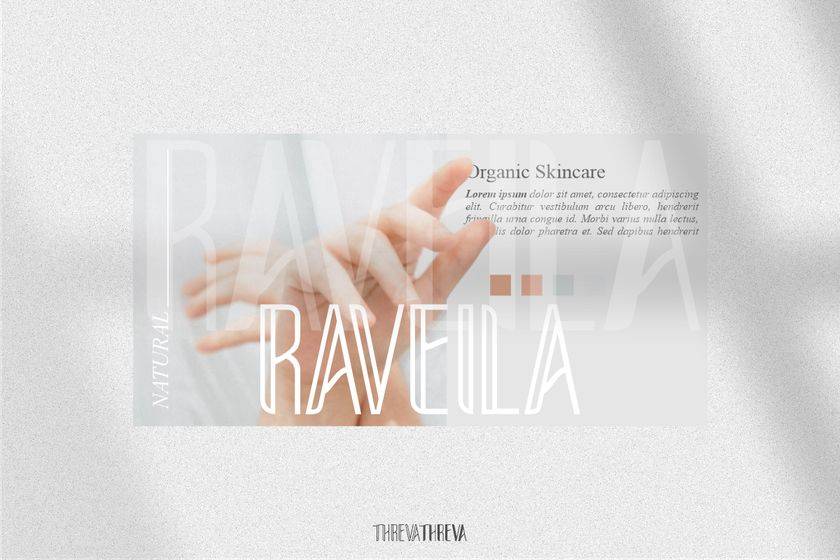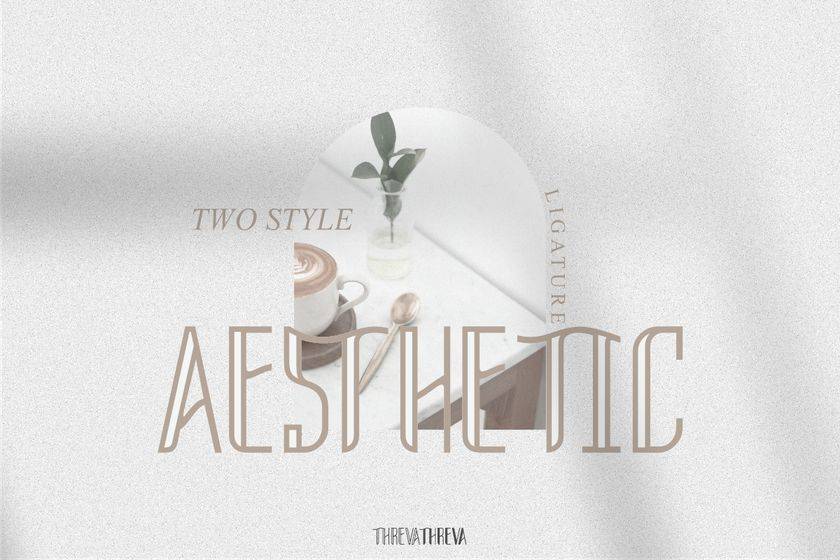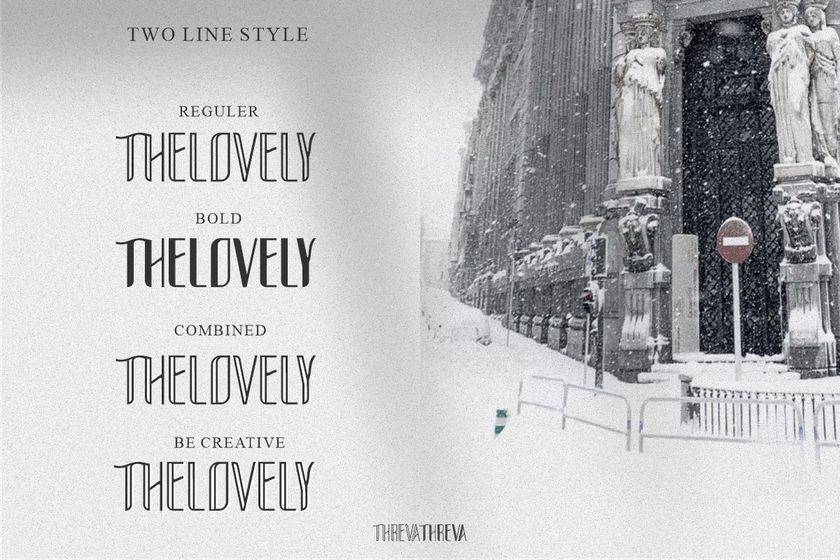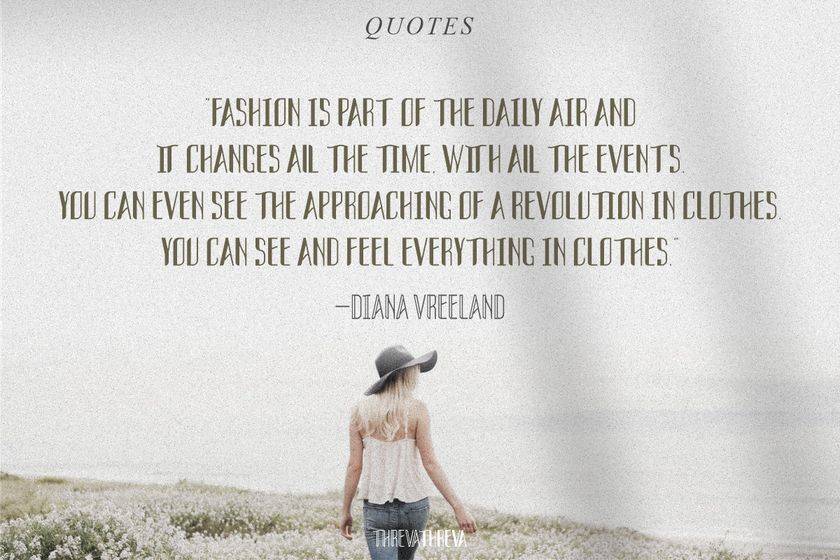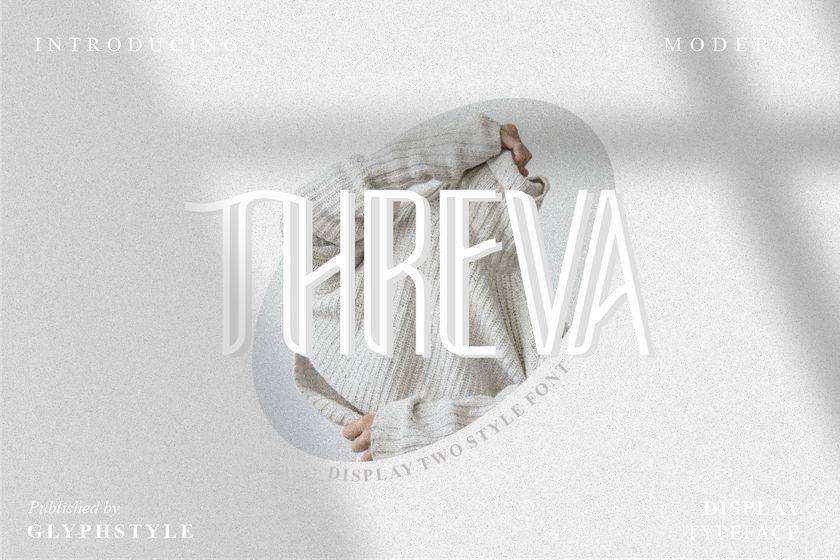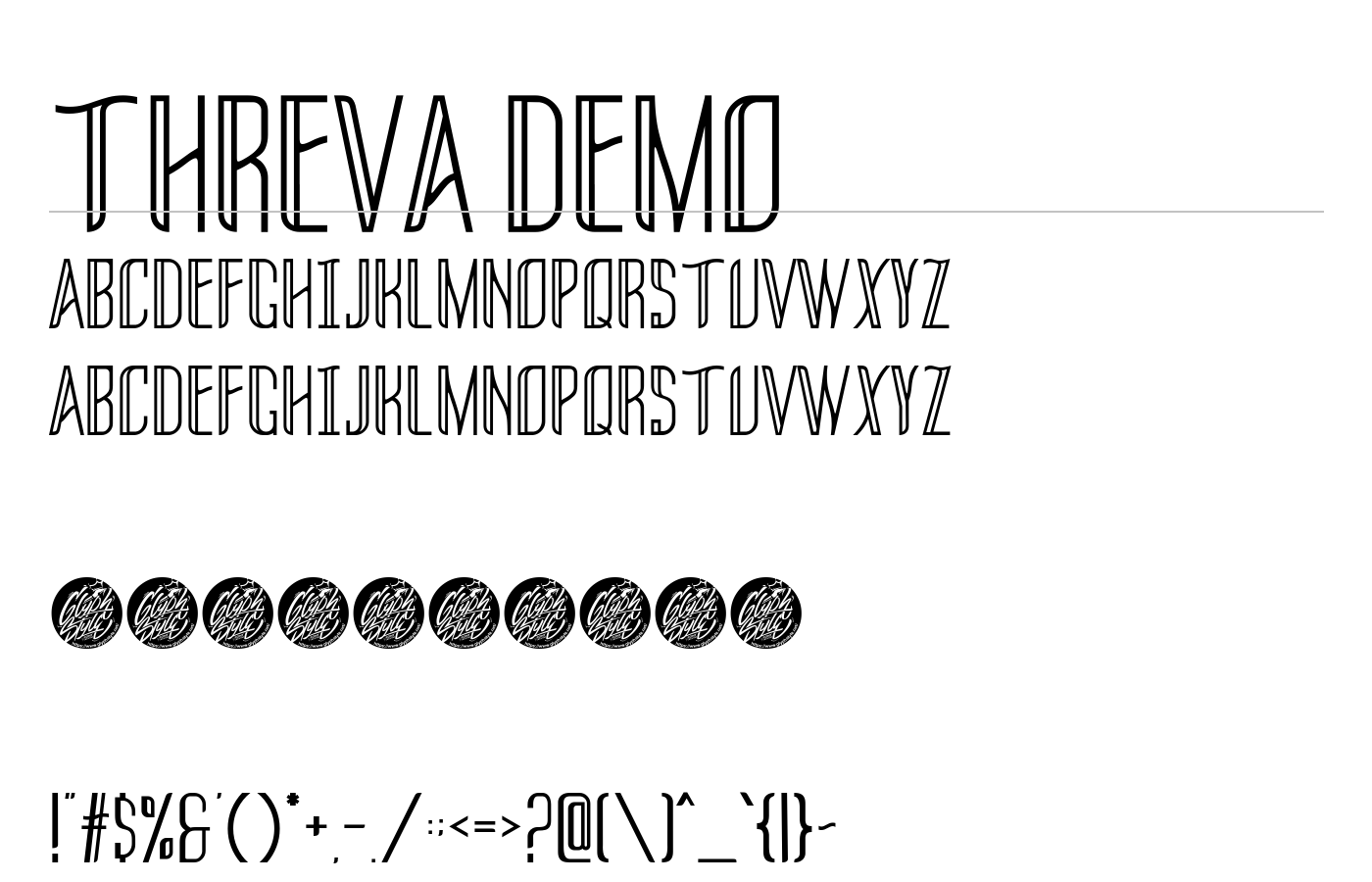
Threva Sans is a tall, narrow sans serif font with a sleek, modern feel. Its thin, clean lines and subtle decorative strokes give it a unique, stylish personality that works well for headlines, logos, and branding where a distinct yet elegant look is desired. This font is ideal for creative projects seeking a contemporary and sophisticated touch without heaviness.
Threva Sans Font
About Threva Sans Font
| Font family | Threva Sans Font |
| Designer | GlyphStyle 2021 |